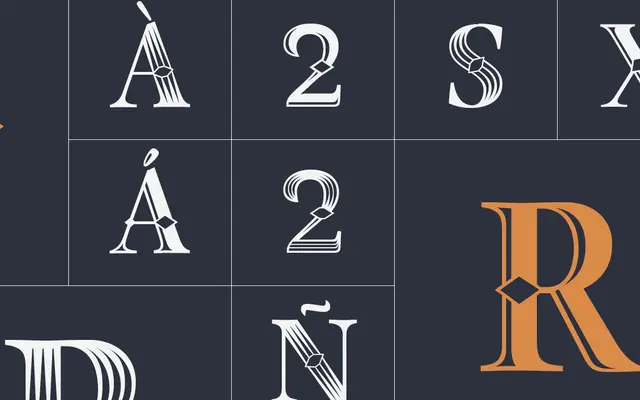
Arlt Deco
Pampatype · Alejandro Lo Celso · 2008
A pair of ornamental all-caps titling fonts by Alejandro Lo Celso, each loosely drawn from 19th century decorative letterforms and best deployed at large sizes for headings, logos and short inscriptions.
Two elegant caps-only display fonts designed for initials, headings, logotypes and inscriptions. Arlt Deco 1 and Arlt Deco 2 draw loosely on 19th century decorative types, with Arlt Deco 2 particularly suited to very large settings where its ornamental detail can breathe. The punning name alludes to the resemblance in pronunciation between 'Arlt Deco' and 'Art Deco', though the design sits closer to neoclassical and transitional ornamental traditions than to the geometric rigour of that movement.
A set of two decorative all-caps titling fonts loosely inspired by 19th century decorative types, with neoclassical, transitional and openface characteristics that place it firmly in the ornamental display category.